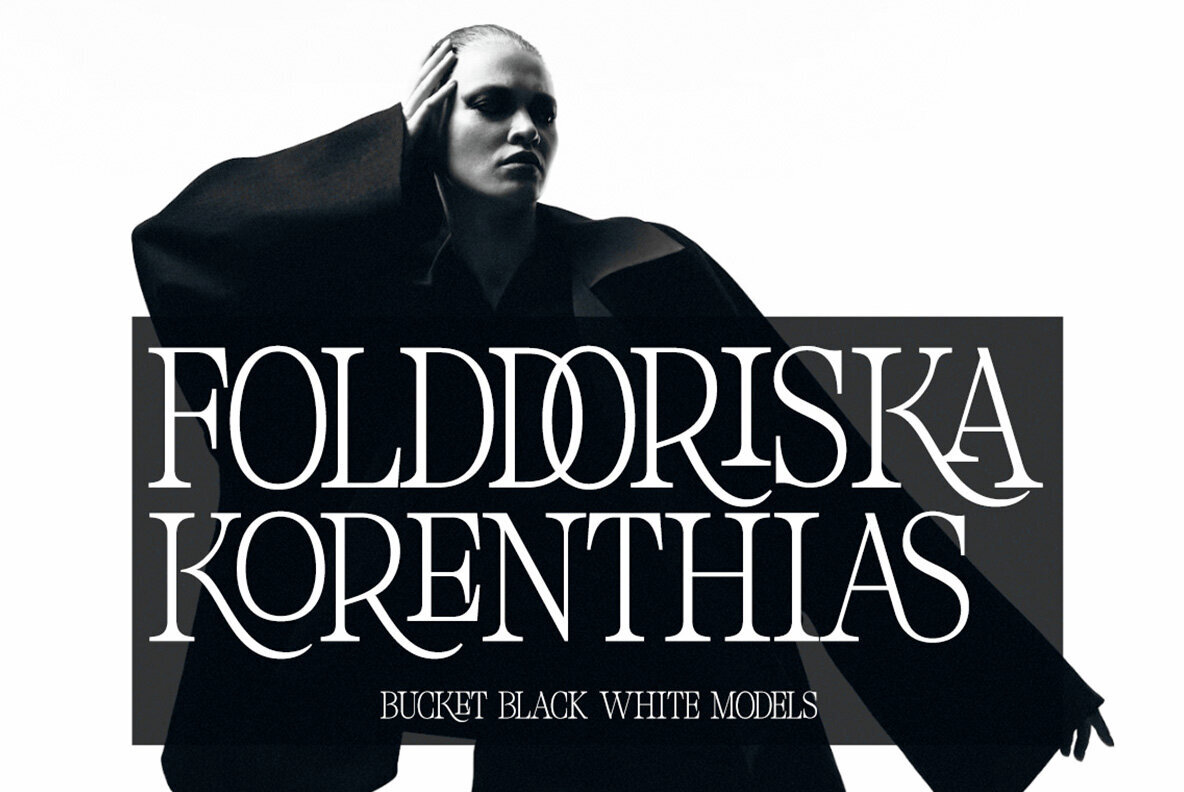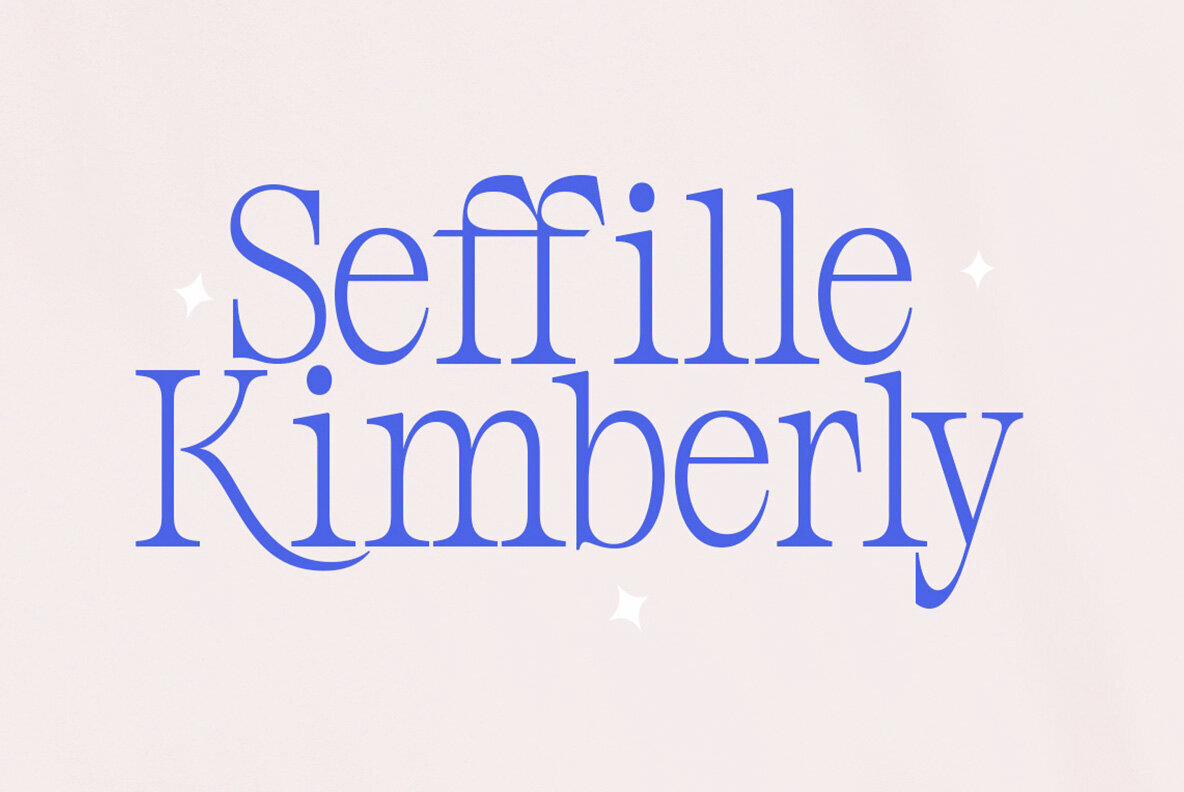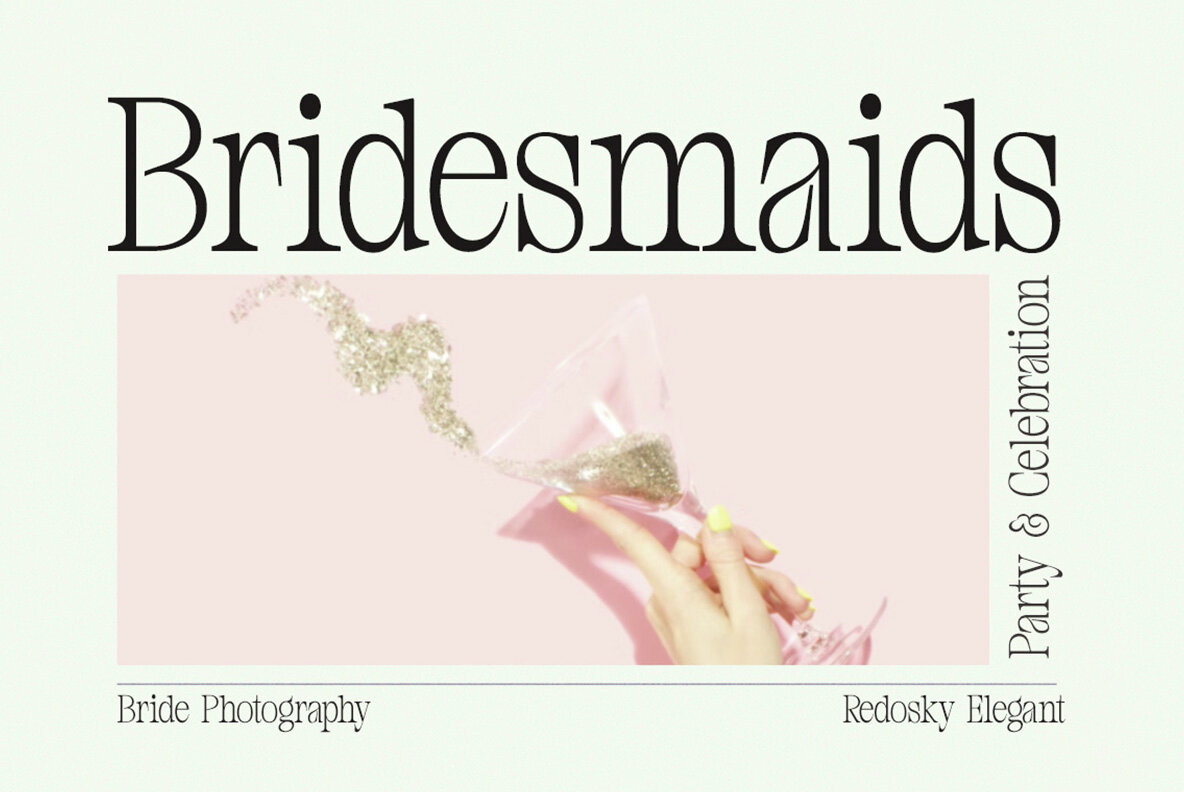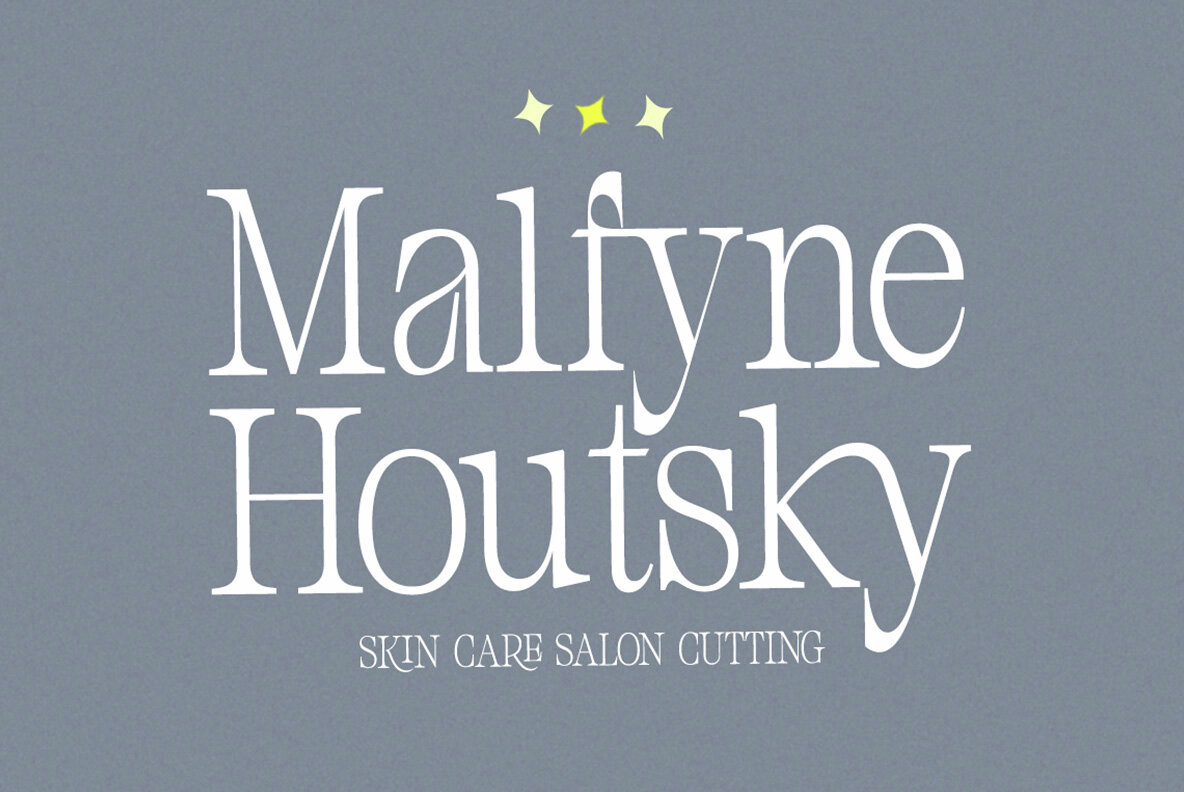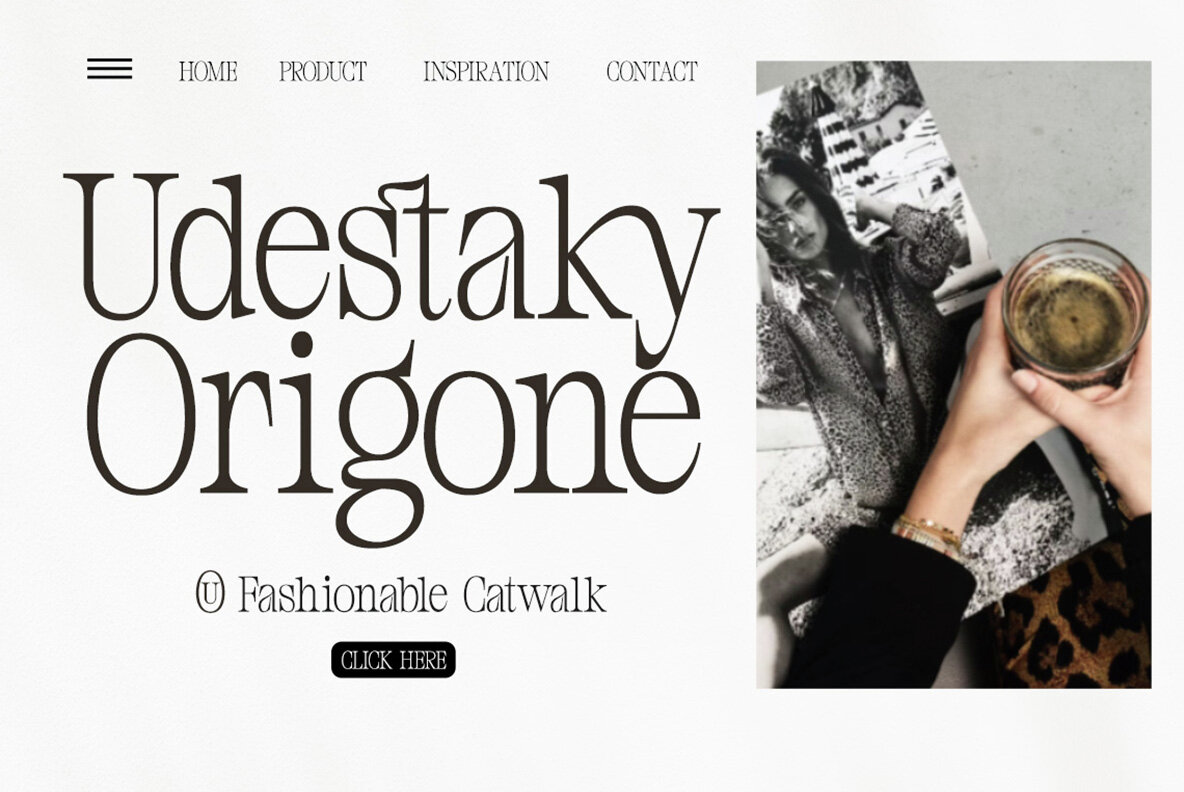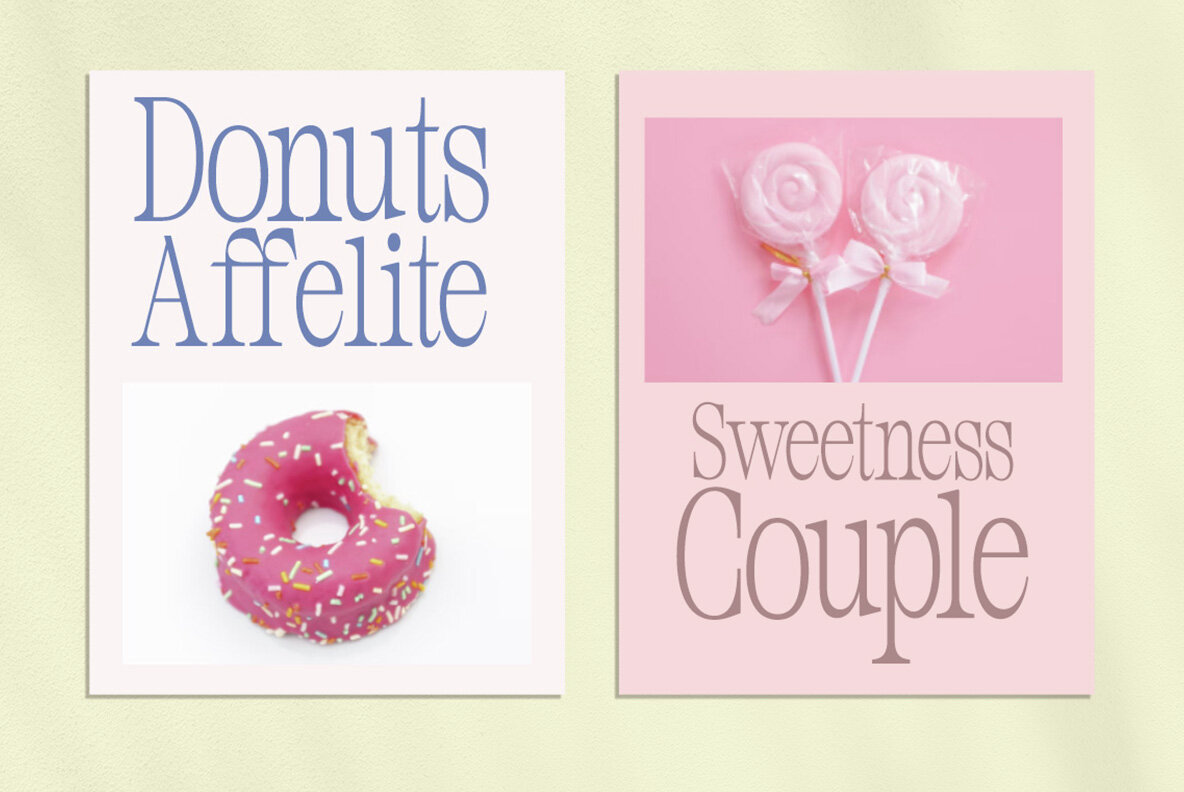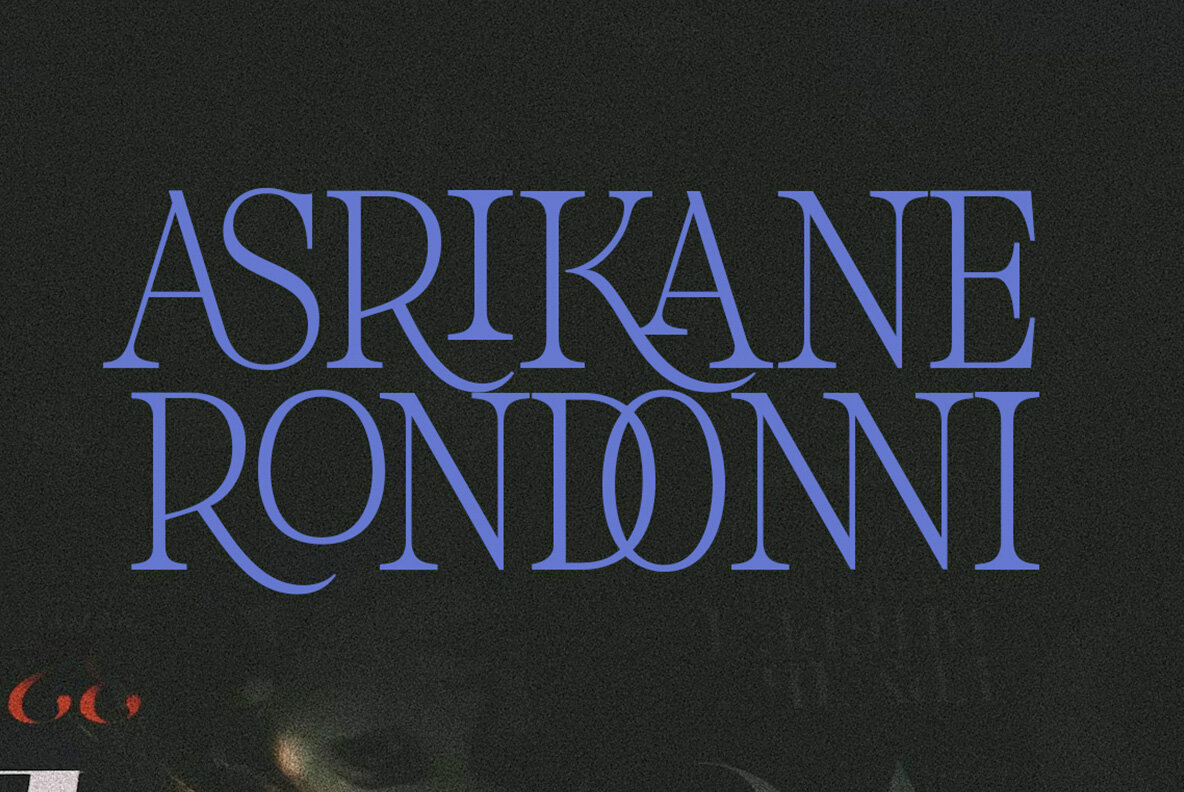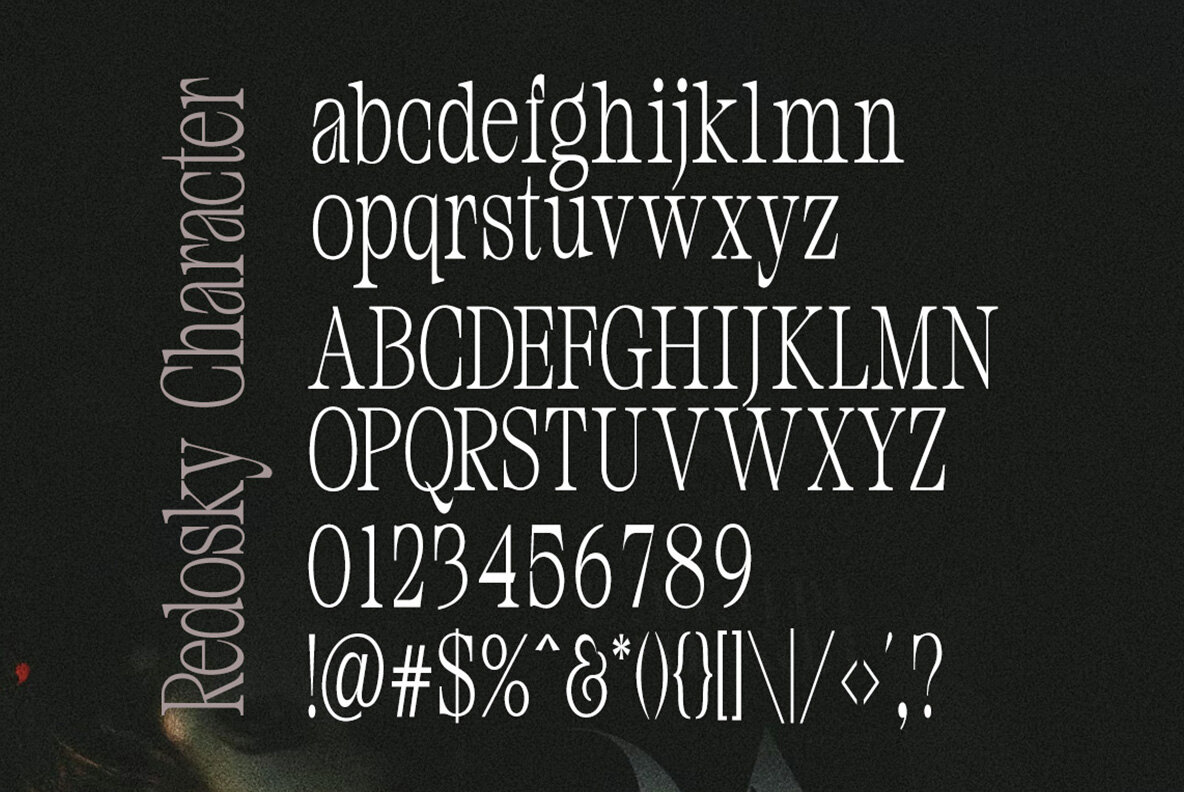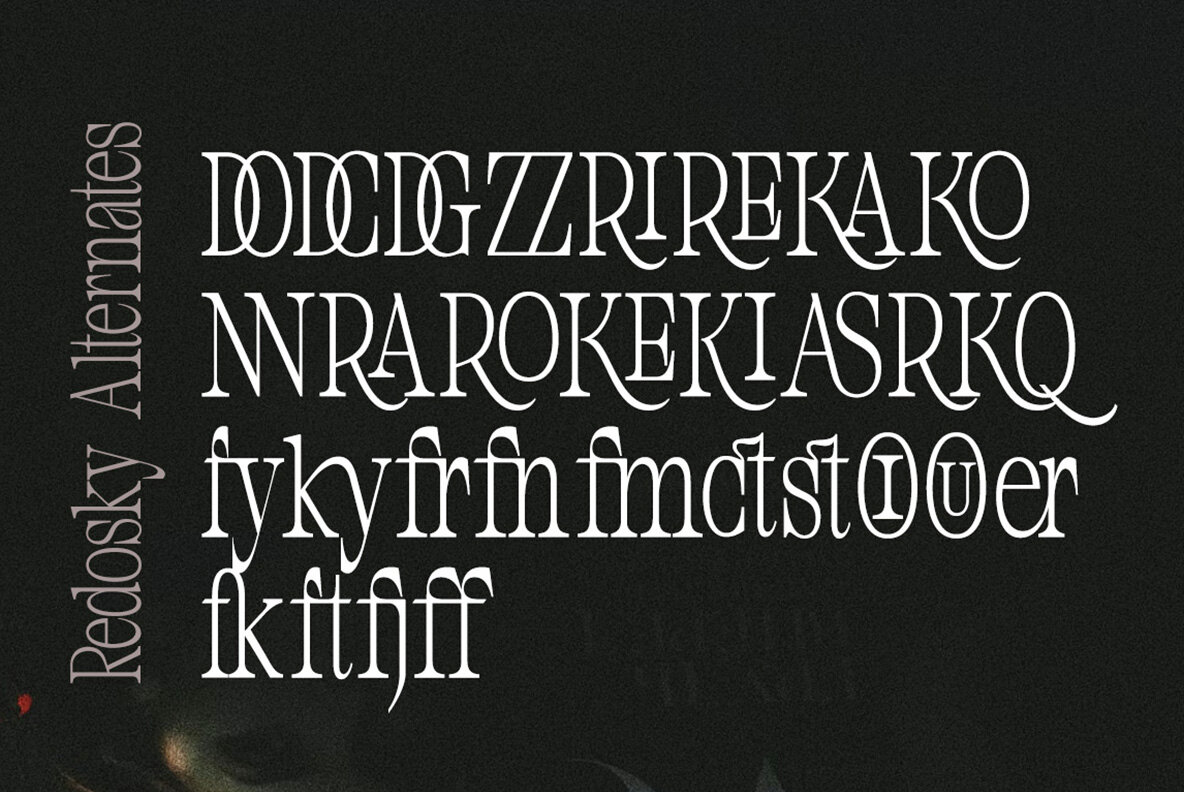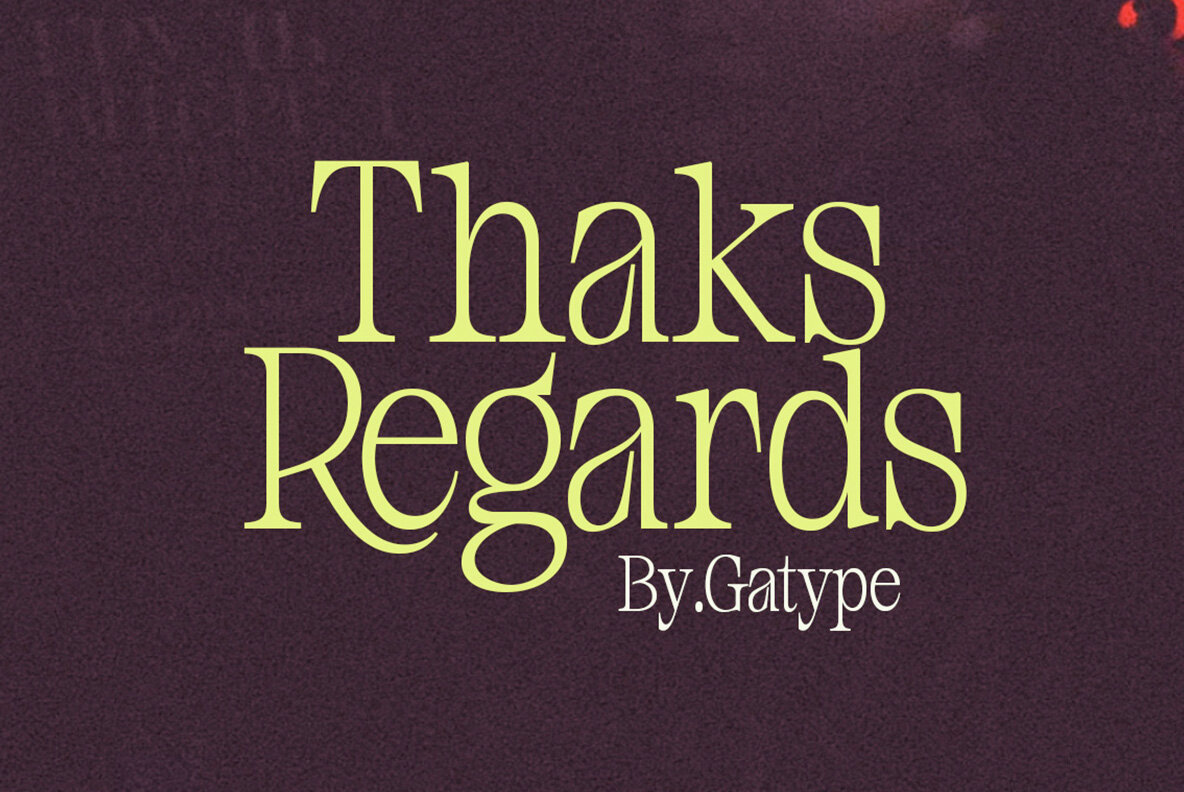
Redosky Font
Redosky Regular
This font is a modern display serif with a high contrast between thick and thin strokes, giving it a refined and sophisticated appearance. Its clean and geometric lines lend to a stylish and contemporary feel, making it suited for editorial, fashion, and luxurious branding purposes. With its bold yet elegant demeanor, this typeface is incredibly versatile and can enhance the visual impact of any design it accompanies.